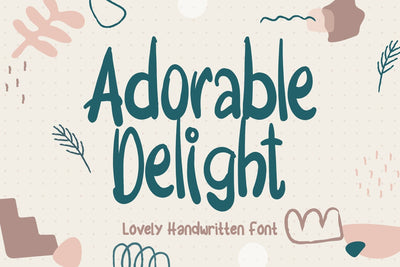
Adorable Delight - Lovely Handwritten Font
Adorable Delight - Lovely Handwritten Font is an embodiment of pure charm, whimsy, and unabashed joy. With its graceful curves, delicate strokes, and endearing imperfections, this font casts a spell of enchantment upon any design it graces. Like a love letter penned with affectionate care, Adorable Delight captures the essence of heartfelt sentiments and adds a touch of magic to every word it forms. Its soft, handcrafted appearance exudes warmth, inviting us to embrace the beauty found in the imperfect and the genuine. This font whispers tales of love, friendship, and the simple pleasures of life, sparking a sense of nostalgia and reminding us of the profound impact that a gentle touch of whimsy can have. With Adorable Delight, every project becomes an expression of love, a celebration of life's little wonders, and a reminder to find delight in the ordinary. It is a font that spreads happiness, leaving a lasting impression on the hearts of those who encounter it and infusing each design with a sense of genuine and irresistible allure.